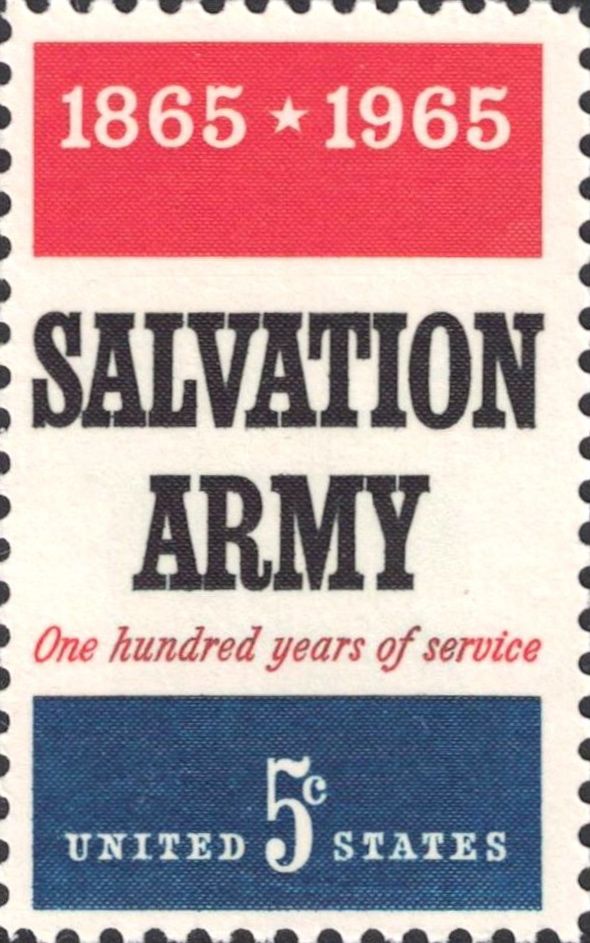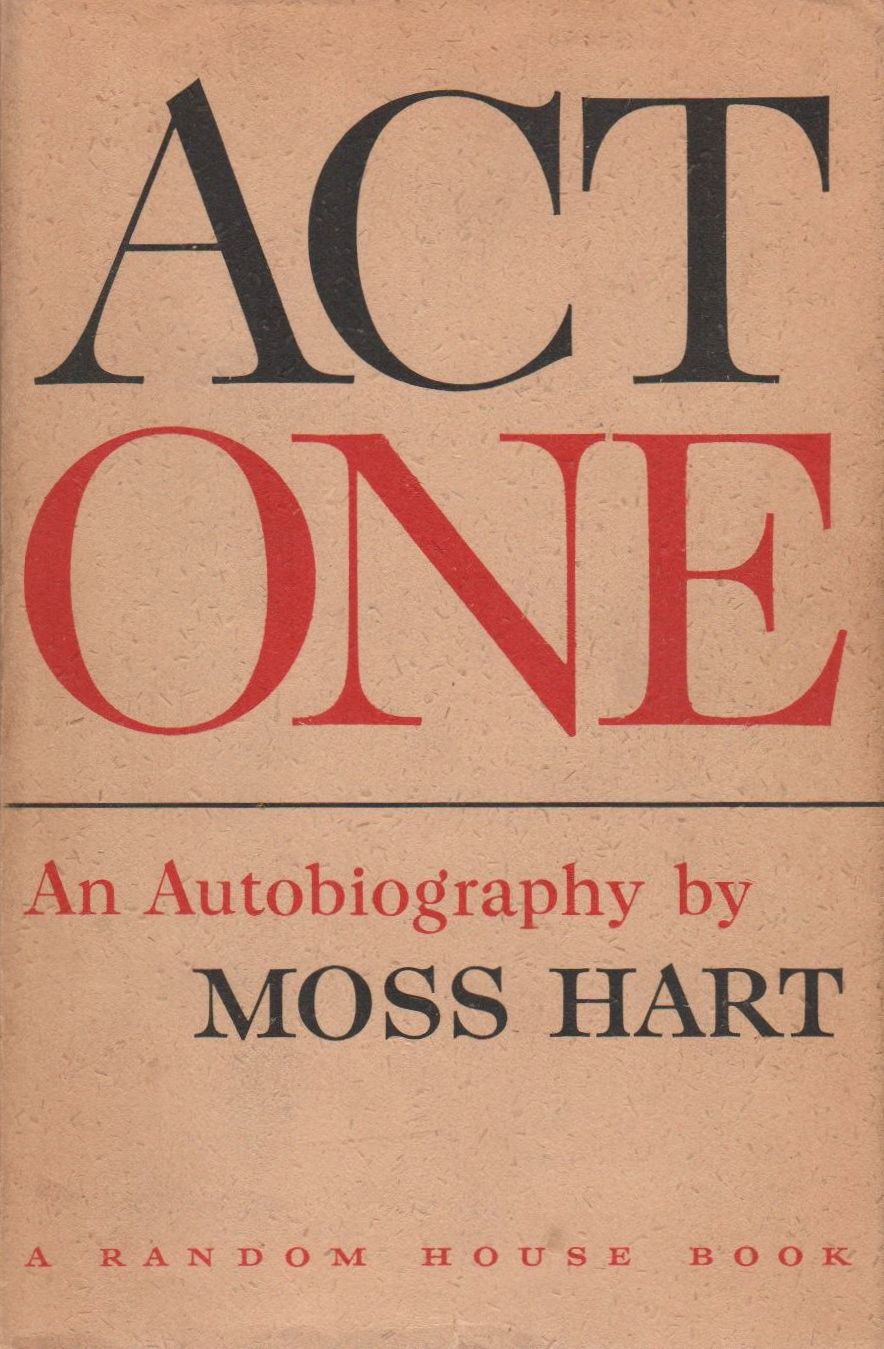
Lettering: Sam Marsh
Samuel H. “Sam” Marsh was on August 20 or 21, 1899, in Warsaw, Poland. The birth dates were recorded on several passenger lists when Marsh went overseas. Early census records said Marsh was born in Russia while later records named Poland. The New York Times, April 2, 1969, said he was born in Warsaw.
On May 5, 1906, Marsh, his mother, Helena and siblings Aron, Odessa and Benjamin, were aboard the S.S. Zeeland when it departed Antwerp, Belgium. They arrived in the port of New York City on May 15. The passenger list said they were Hebrew and were going to the home of Marsh’s father and maternal grandfather who resided at 7 Willett Street in New York City.
The 1910 U.S. Federal Census recorded Marsh, his parents and four siblings in Manhattan at 204 East 109 Street. His father had a plumbing business.
In the 1915 New York state census, the Marshes were Bronx residents at 1082 South Boulevard.
The Stamp Specialist Orange Book (1941) said Marsh was “educated in the public and High Schools of New York.  After service in the U.S. Navy, was employed by J. & R. Lamb, ecclesiastical art workers. Received first training in lettering and designing tombstones and procession crosses!” The Times said Marsh graduated from Stuyvesant High School and was offered a scholarship to the Columbia University School of Architecture. However, Marsh had to earn a living and found a job doing decorative lettering for tombstones.
1920 census said Marsh was an artist at a studio. He lived with his parent in the Bronx at 890 Forest Avenue. According to the Times, Marsh formed a studio, S.H. Marsh Associates, which became very successful.
The Stamp Specialist Orange Book said Marsh “studied at the New York Evening School of Industrial Design and the Art Students League for five years. During that time, worked for the McFadden Publications, Robert Gare, packaging, and the Harry Marx Advertising Art Service. Became free lance in 1926…”
Mamaroneck, New York was Marsh’s home in the 1930 census. He was married to Lenore, a Brooklyn native, and had a daughter. They lived on Bleecker Street and employed a maid. Marsh was a commercial artist in the lettering trade.
Edward Rondthaler mentioned Marsh in his book, Life with Letters—As They Turned Photogenic (1981), on pages 54 and 55.
1937–40
…Mr. Kohl, who held the purse strings at J. Walter Thompson, sent word that Photo-Lettering was not to add any more hand lettered styles. Flexible type was to be our province. We could keep the styles we already had but no new ones. Evidently Sam Marsh had persuaded him that the newcomers on Forty-fifth Street were getting out of hand and should be fenced in. We had no choice but to pull back for a while and hope the storm would blow over.
Much later in life I learned that it’s almost impossible to deny an enterprise the tools that enable it to prosper. Certainly you can’t do it artificially, and that’s what Mr. Kohl was trying to do. He was probably making a gesture in behalf of his friend Sam Marsh, but it’s rare that the power of a gesture from on high can match the determination of the little fellow way down the ladder fighting for his life. We all remember the vivid example of this in the Vietnam war. Big money and big firepower with halfhearted commitment was no match for little money and little firepower with big commitment.
Railroad Gothic finally gave us our chance to break Mr. Kohl's ban. Railroad needed a lowercase, it needed certain improvements in the caps, and it needed more weights and proportions. Any change on battered old Railroad Gothic could easily be passed off as no more than flexing type. At first we called our revision “Railroad” just in case Mr. Kohl flagged us down. But when nothing happened we threw caution to the wind and boldly renamed the new gothic in honor of our favorite telephone exchange—Murray Hill.
The Daily Argus (Mount Vernon, New York), February 5, 1938, reported Marsh’s stamp design.
A small green stamp, bearing the legend “Peace is the new patriotism” was introduced into Westchester yesterday, when Mrs. Charles F. Robbins, of Llewelyn Park, West Orange, N. J., chairman of the Peace Stamp Committee of the New Jersey Council of International Relations, was a luncheon guest of Mrs. Carrie Chapman Catt, 120 Paine Avenue, New Rochelle. With Mrs. Robbins was Mrs. Frederick A. Coombs, international relations chairman of the Woman’s Club of Orange, N. J.
The stamp, designed by Sam Marsh, New York artist, represents the globe. The band encircling it with the quotation, expresses a thought voiced some 20 years ago by the late Jane Addams. Above and below is printed “Encircle the globe with thought.”
The New York Sun, March 21, 1938, said “Eastern Offices, Inc., leased space in the Graybar Building, 420 Lexington avenue to Samuel H. Marsh…”
Marsh and his wife visited Mexico. They departed abroad the S.S. Yucatan from Vera Cruz, Mexico on November 6, 1935 and arrived in New York six days later. The following year, they visited South America. On November 11, 1936, the steamship Santa Inez departed Callao, Peru and arrived in the port of New York on the 24th. The passenger list said Marsh’s address was Taylor’s Land, Mamaroneck, New York. Marsh visited the Bahamas in 1939. He returned to New York on April 7. Marsh gave his business address, 420 Lexington Avenue, New York City, on the passenger list. Marsh returned from a trip to Jamaica on April 25, 1940, about two-and-a-half weeks before the 1940 census enumeration.
Winston Churchill; Designer, Richard Hurd; lettering by Sam Marsh; First day issue May 13, 1965, Fulton, Missouri
Salvation Army; Designer, Sam Marsh; First day issue July 2, 1965, New York, New York
Herbert Hoover; Designer, Norman Todhunter; lettering by Sam Marsh; First day issue August 10, 1965, West Branch, Iowa
The Times said Marsh retired in 1967 and, about two years later, passed away March 31, 1969 at Mount Sinai Hospital in New York City. He lived at 70 West 10th Street and in Santa Fe, New Mexico.